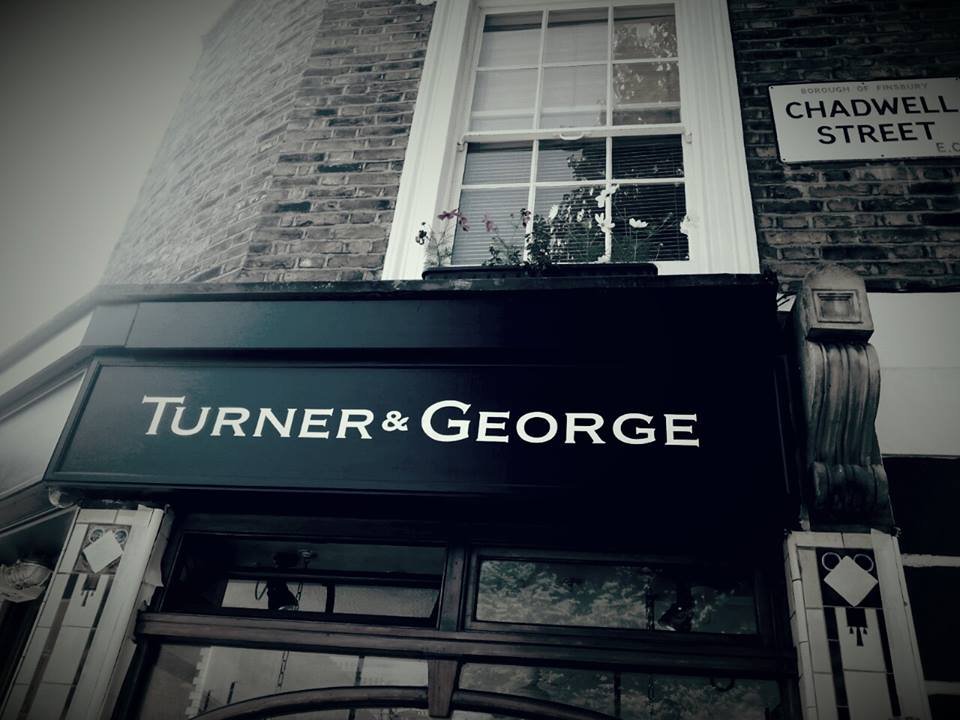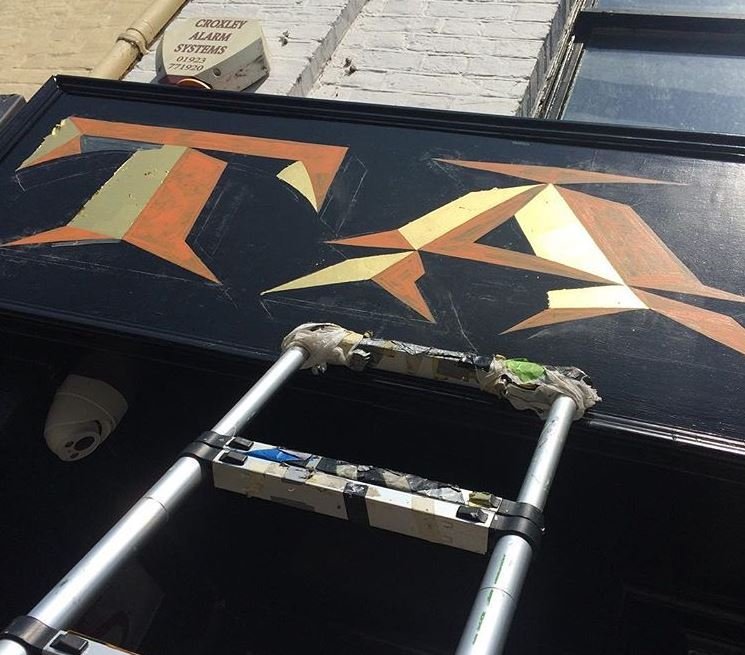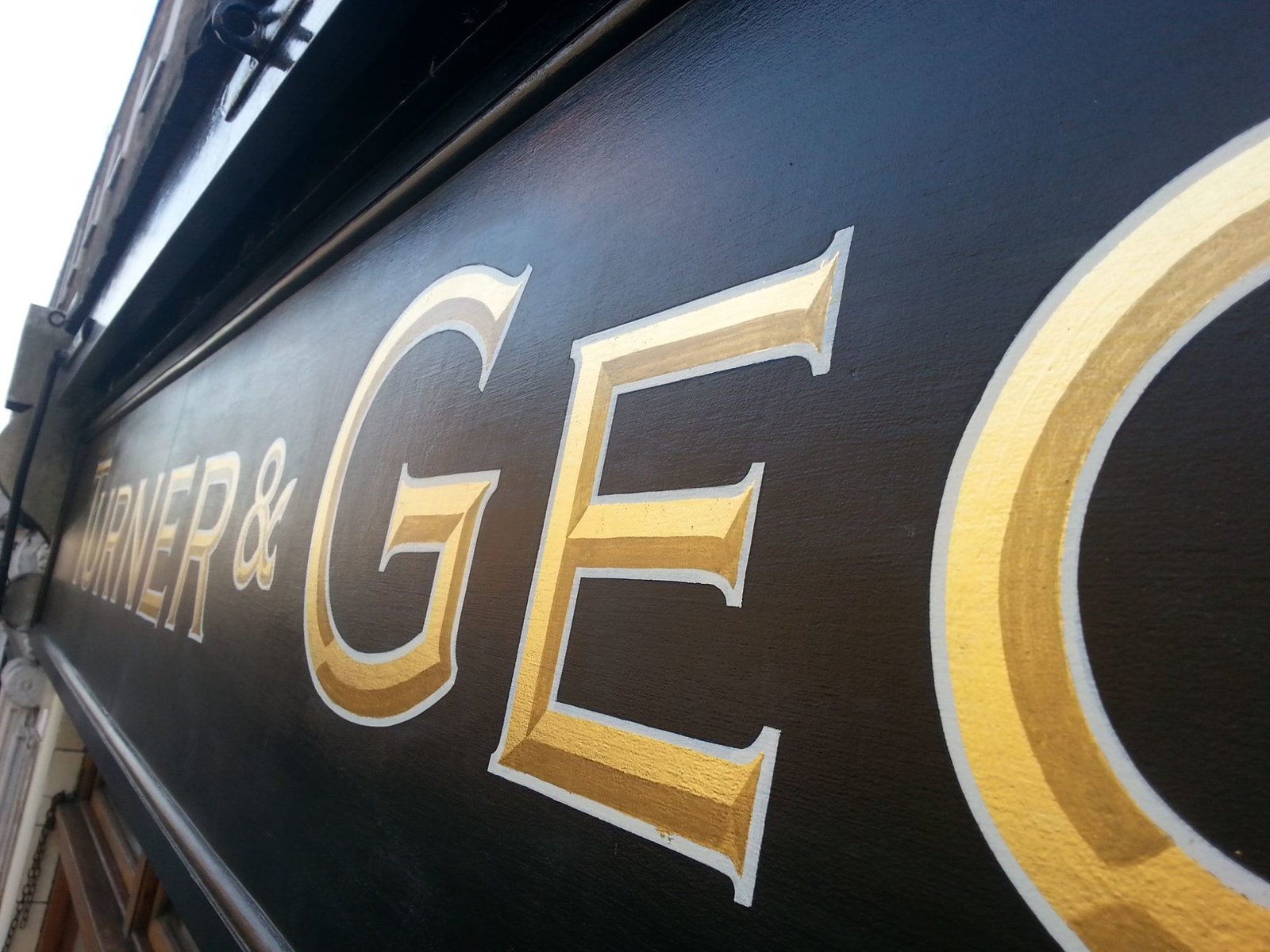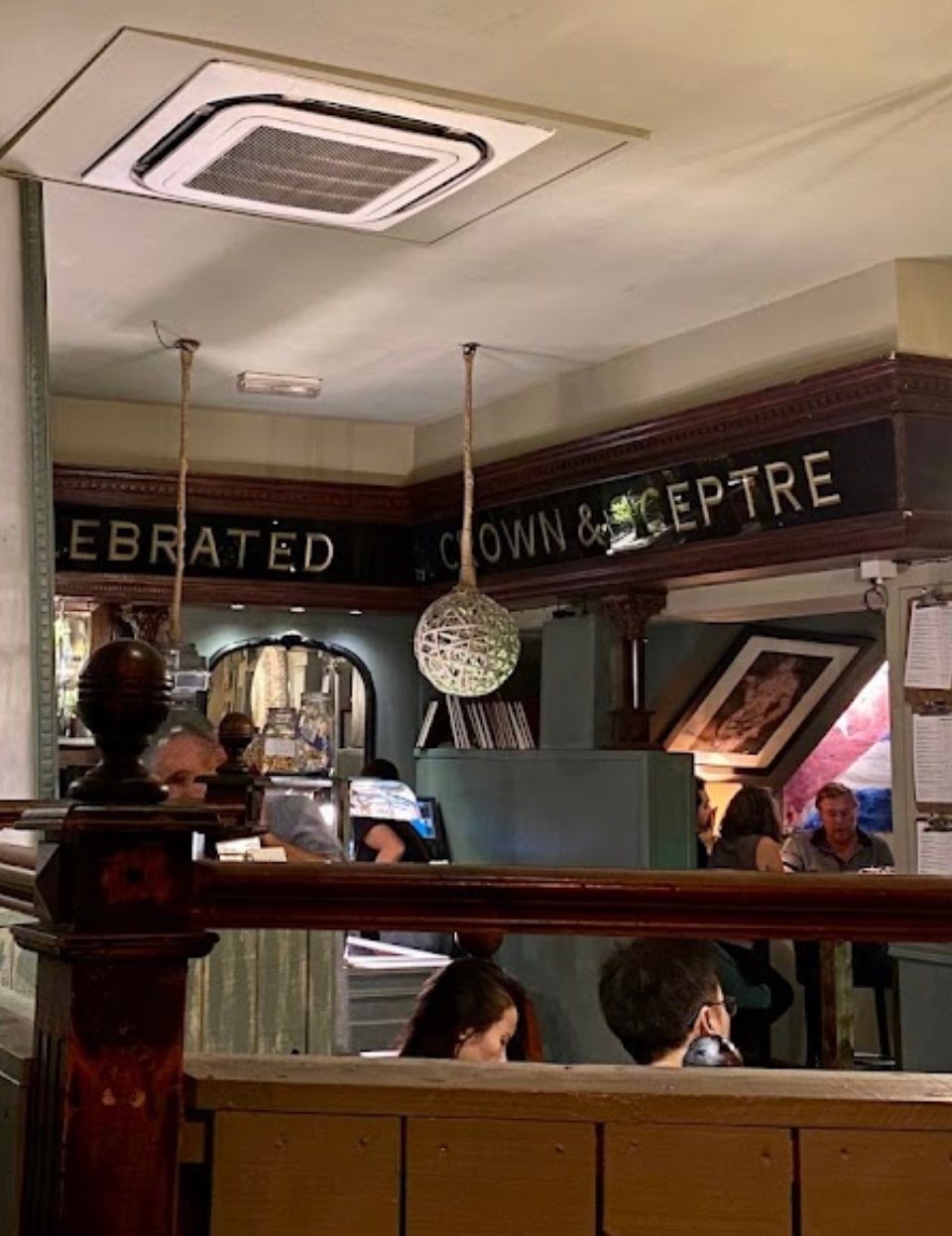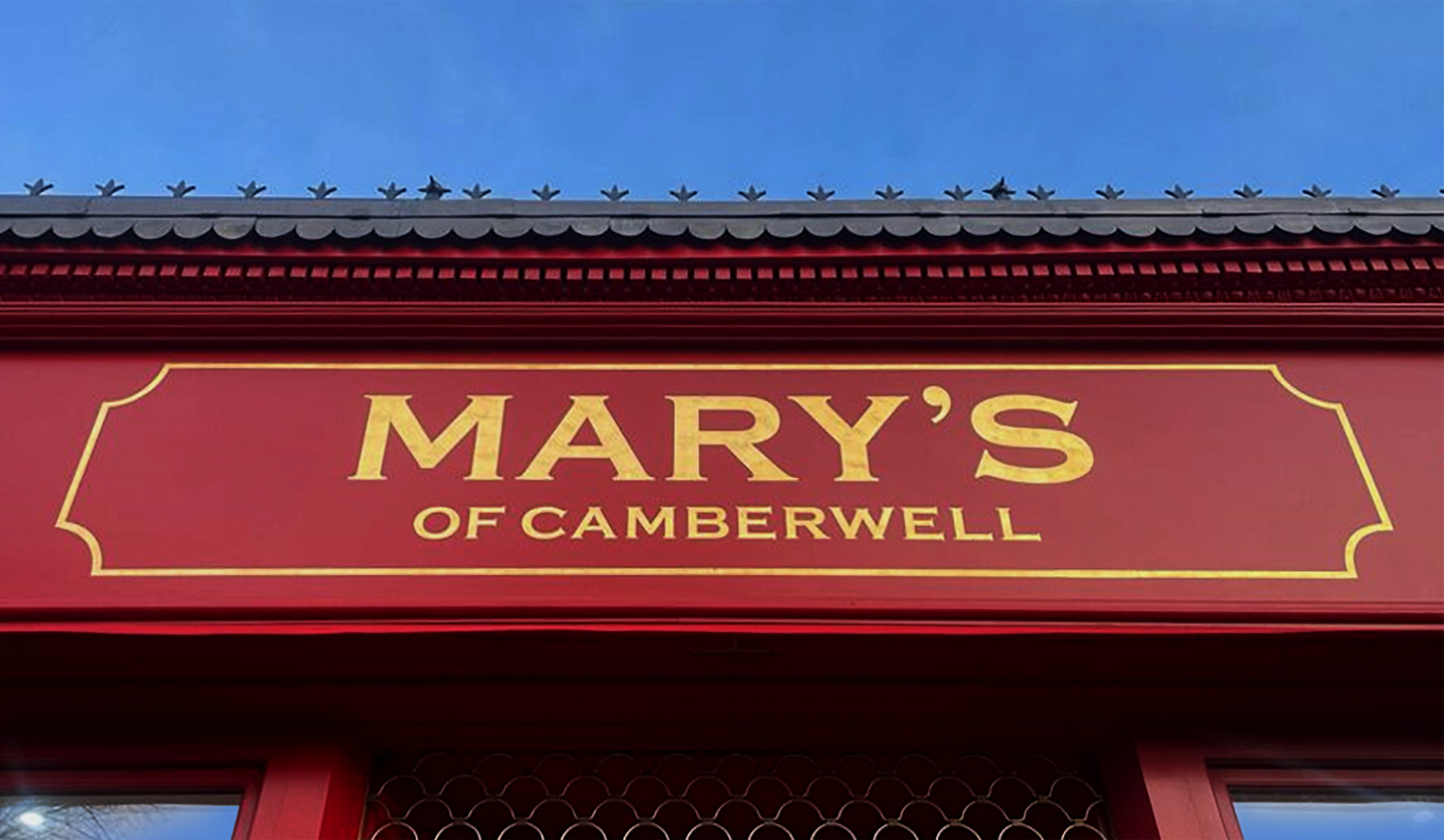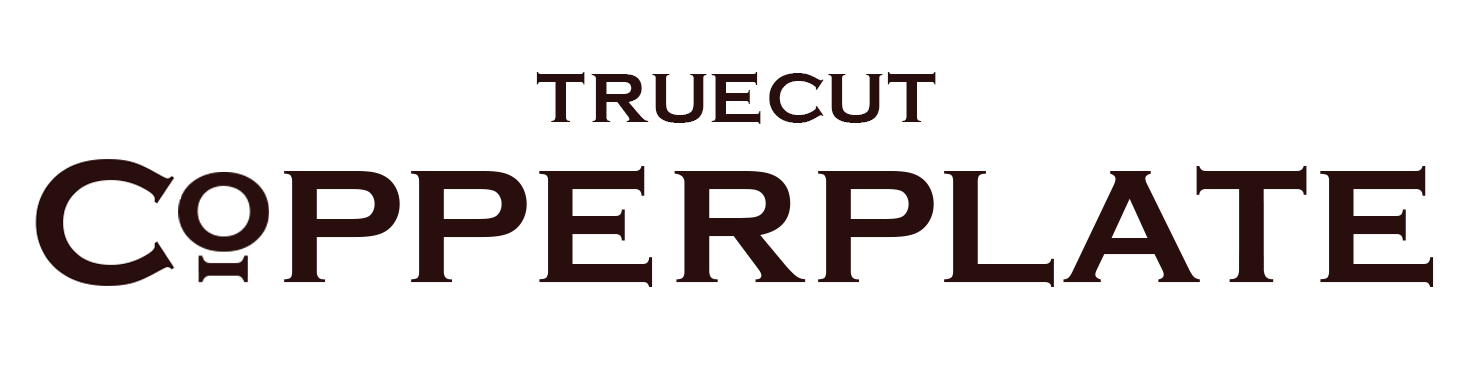
Copperplate Font by NGS London
The Birth of NGS ‘True Cut’ Copperplate Font Creation:
First thing is to say is I wasn’t a great lover of the Copperplate Font until I was asked to letter a Butcher shop in Angel in 2013. I chose to ‘chisel effect’ the gold leaf lettering and frame it with an antique white outline.
This was the first chiselled letter painted in London for a long while.
Turner and George Chiselled gold NGS Copperplate Font Creation
T G NGS vintage Copperplate letters
BY CHANCE… AN ORIGINAL EXEMPLAR FOUND
Then a few months later I happened to see this wonderful example, in the Crown and Scepter pub, Holland Road below, and it held up Copperplate in a more refined light for me.
TG inspiration for Copperplate
NGS Copperplate Font Creation, Original specimin
Next came ‘Alan Norris’ in white with a gold outline – and a more gracefully chiselled definition.
Copperplate 3 inside typography at NGS signwriters
Copperplate type by NGS, custom signwriting London
NGS Copperplate Font Creation
TIMELESS BEAUTY